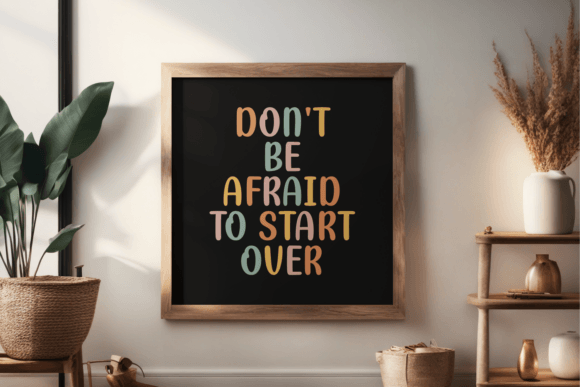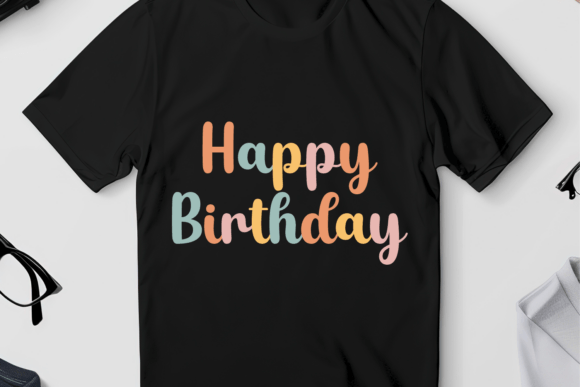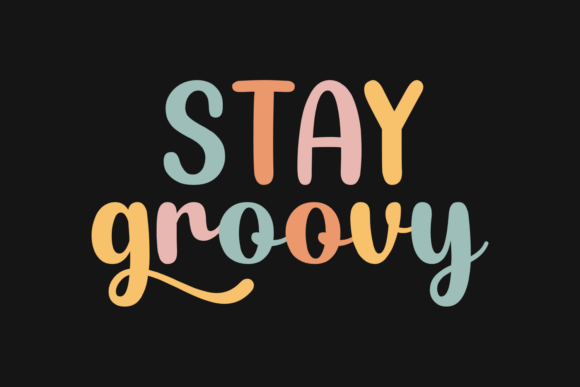
Unleashing the Power of Haiden Font: A Bold and Confident Choice for Designers and Crafters
When it comes to choosing the right font for a design project, the options can be overwhelming. However, if you’re looking for a name that exudes strength and confidence, look no further than Haiden. This powerful and adventurous name is perfect for designers and crafters who want to make a bold statement. In this article, we’ll explore the world of Haiden font, its meaning, and why it’s the perfect choice for those who dare to be different.
The Meaning Behind Haiden
Haiden is a name that commands attention. Its strong and confident sound makes it perfect for individuals who are brave, adventurous, and fearless. The name Haiden is derived from the Old English words “hædd” meaning “hay valley” or “hay town”. However, its modern interpretation is more closely tied to its symbolic meaning – a person who is bold, courageous, and willing to take risks.
Haiden Font: A Bold and Confident Choice
Haiden font is more than just a name – it’s a statement. Its bold and confident design makes it perfect for designers and crafters who want to add a touch of adventure and bravery to their work. Whether you’re designing a logo, creating a brand identity, or crafting a unique piece of art, Haiden font is the perfect choice. Its strong and rugged design ensures that your work stands out from the crowd, making a lasting impression on your audience.
Why Designers and Crafters Love Haiden Font
So, why do designers and crafters love Haiden font? Here are just a few reasons:
- Uniqueness: Haiden font is unlike any other font out there. Its bold and confident design ensures that your work stands out from the crowd.
- Versatility: Haiden font can be used for a wide range of design projects, from logos and branding to crafting and DIY projects.
- Emotional Connection: The name Haiden evokes feelings of bravery, adventure, and confidence, making it perfect for designers and crafters who want to create an emotional connection with their audience.
How to Use Haiden Font in Your Design Projects
Using Haiden font in your design projects is easy. Here are a few tips to get you started:
- Pair it with contrasting fonts: Haiden font is bold and confident, so pair it with contrasting fonts to create visual interest.
- Use it for headings and titles: Haiden font is perfect for headings and titles, where you want to make a bold statement.
- Experiment with different colors: Haiden font looks great in a range of colors, from bold and bright to muted and subtle.
In conclusion, Haiden font is a powerful and confident choice for designers and crafters who want to make a bold statement. Its strong and adventurous design ensures that your work stands out from the crowd, making a lasting impression on your audience. Whether you’re designing a logo, creating a brand identity, or crafting a unique piece of art, Haiden font is the perfect choice. So why settle for a ordinary font when you can unleash the power of Haiden?